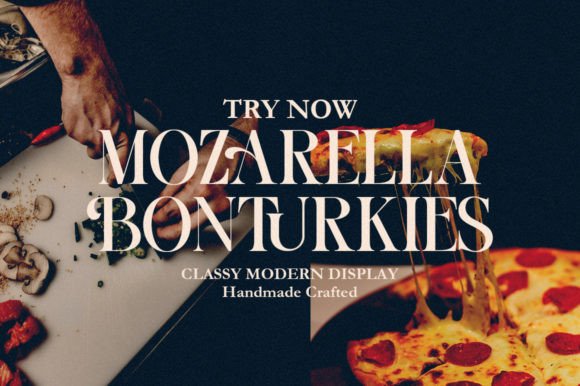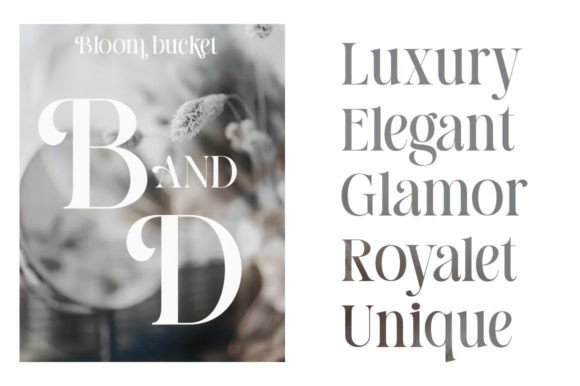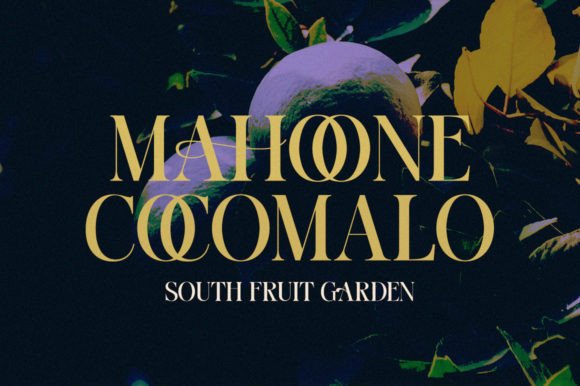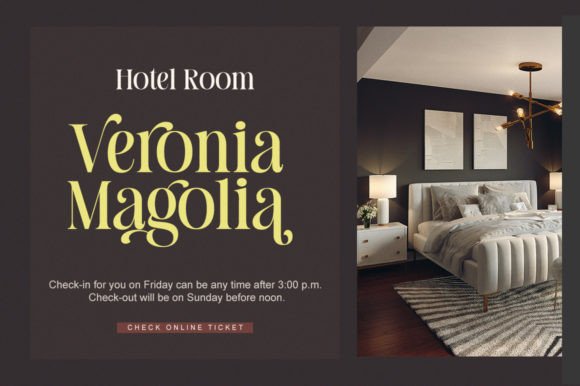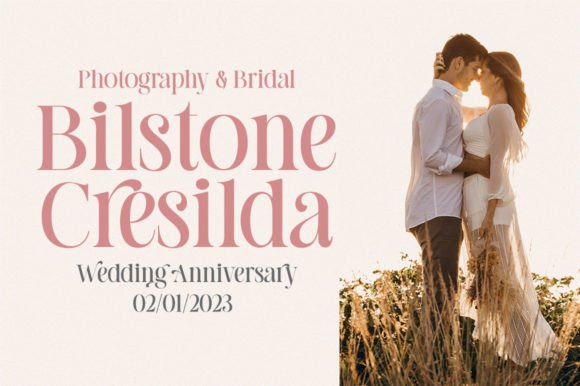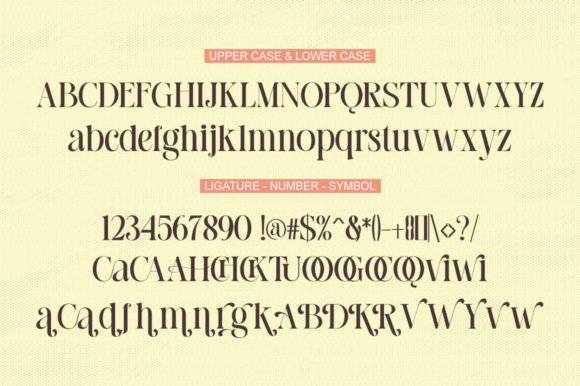
Calera Font
Elegant, graceful, and timeless. Calera is a versatile font with timeless classic appeal, more than a dozen alternatives & ligatures, multilingual support, and great precision for you to incorporate into your designs!
Each letter has been hand drawn and crafted with great care. The various weights provide a variety of options that will help you find the best typographical character for your project.
Perfect for logos, notes, posters, t-shirts, stickers, posters, mugs, labels, etc.